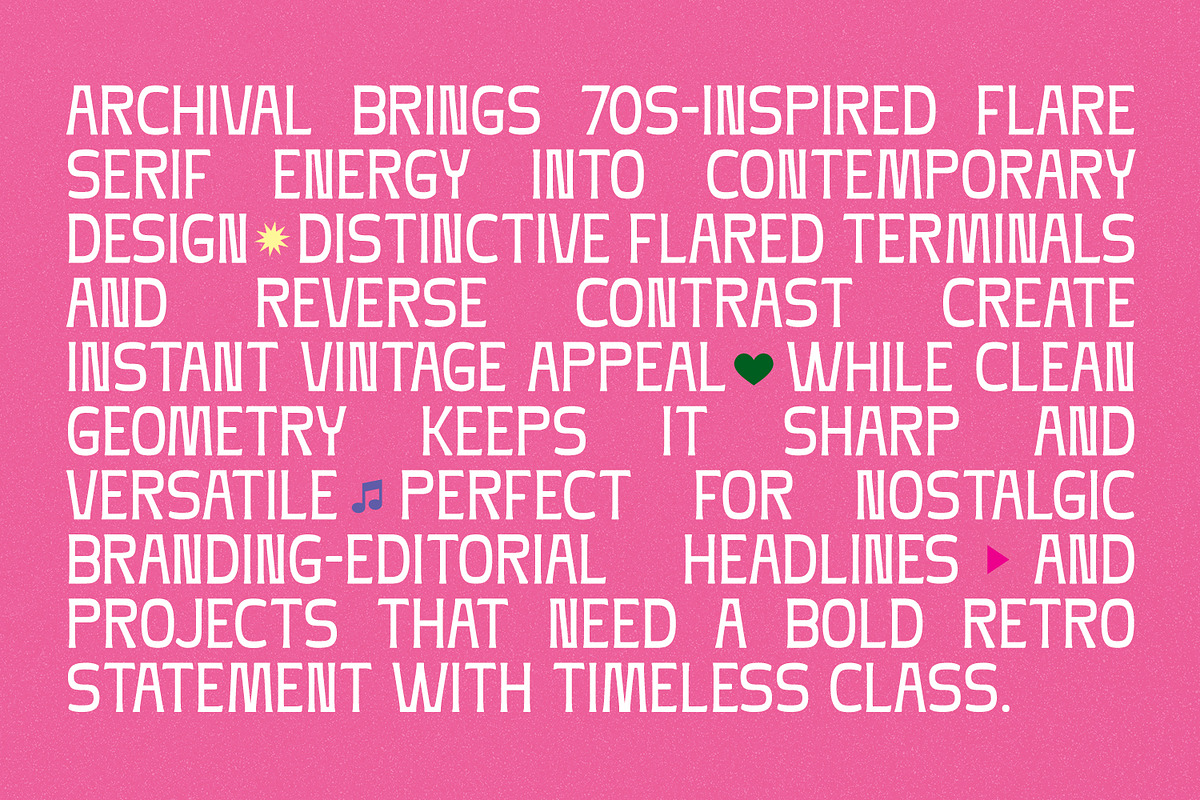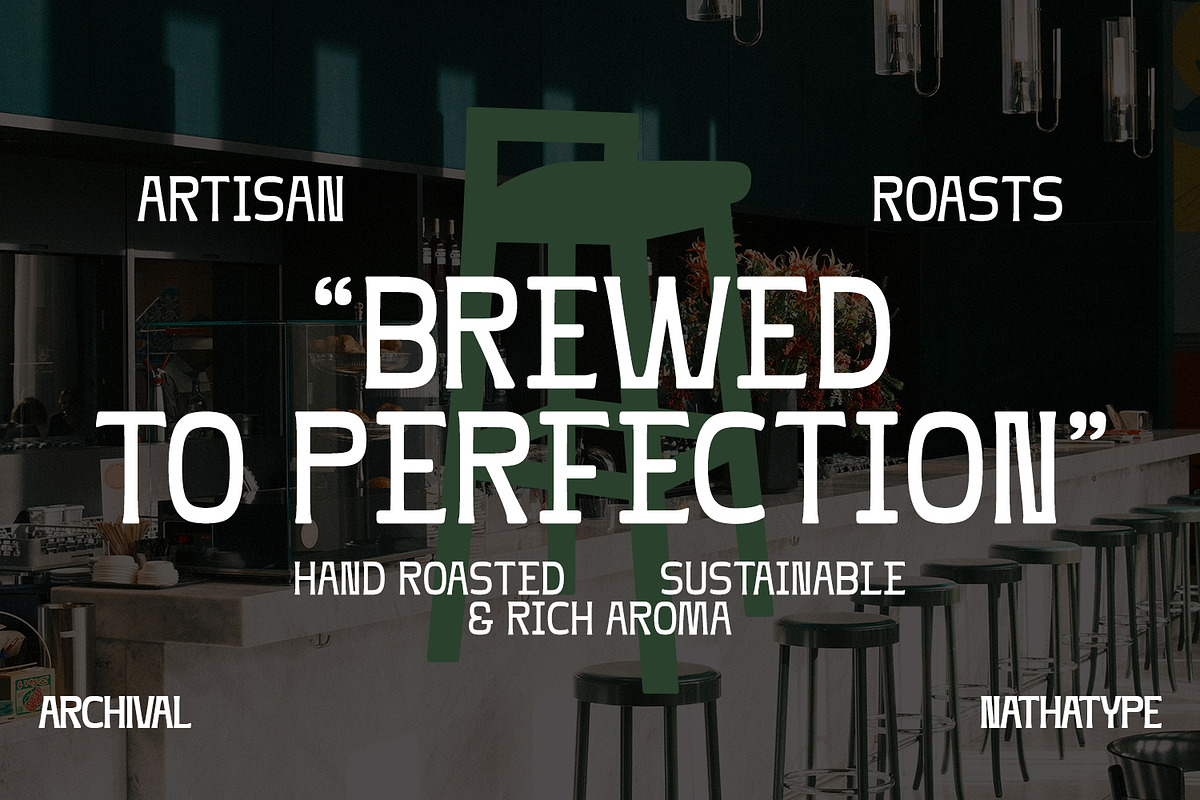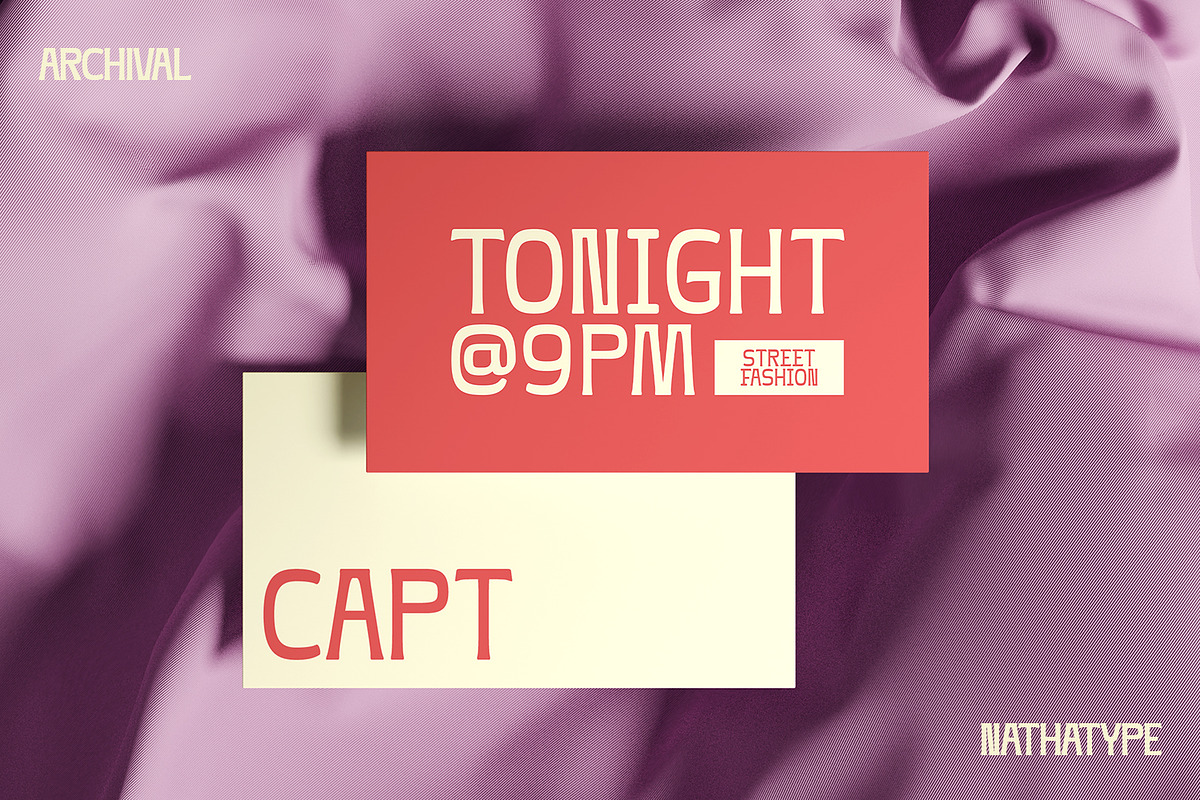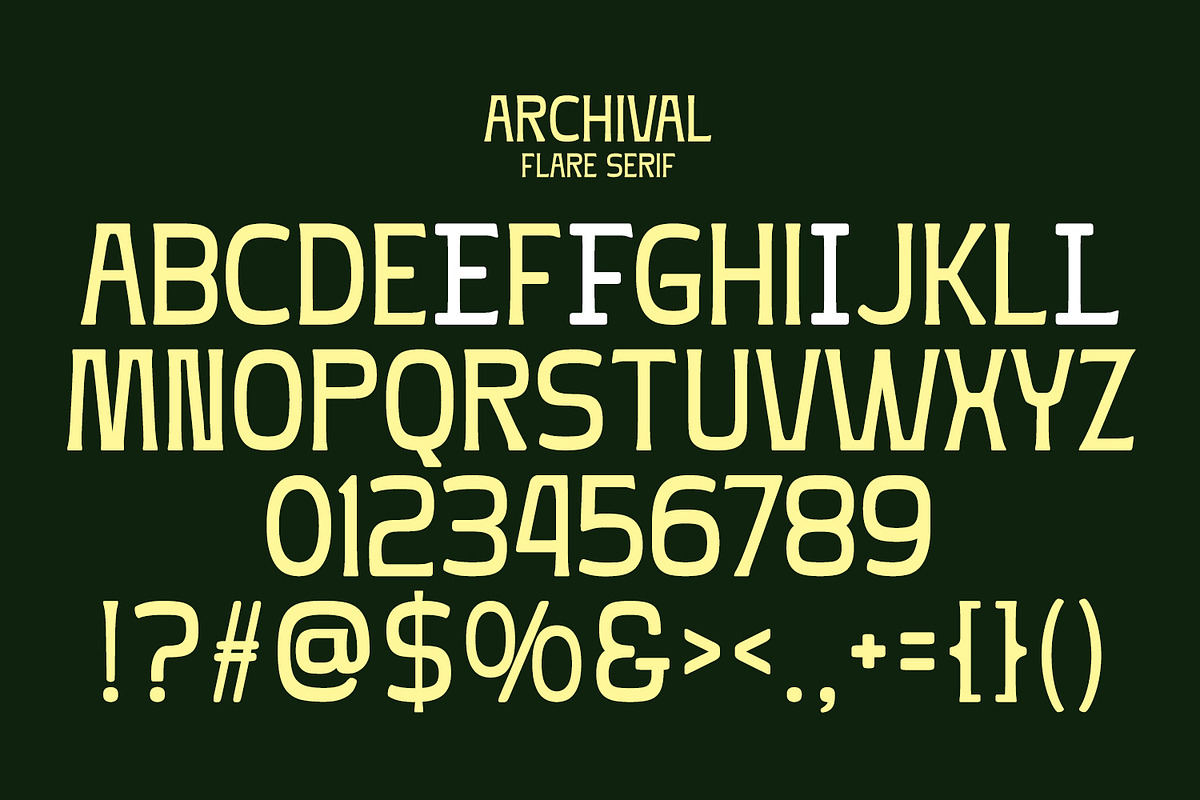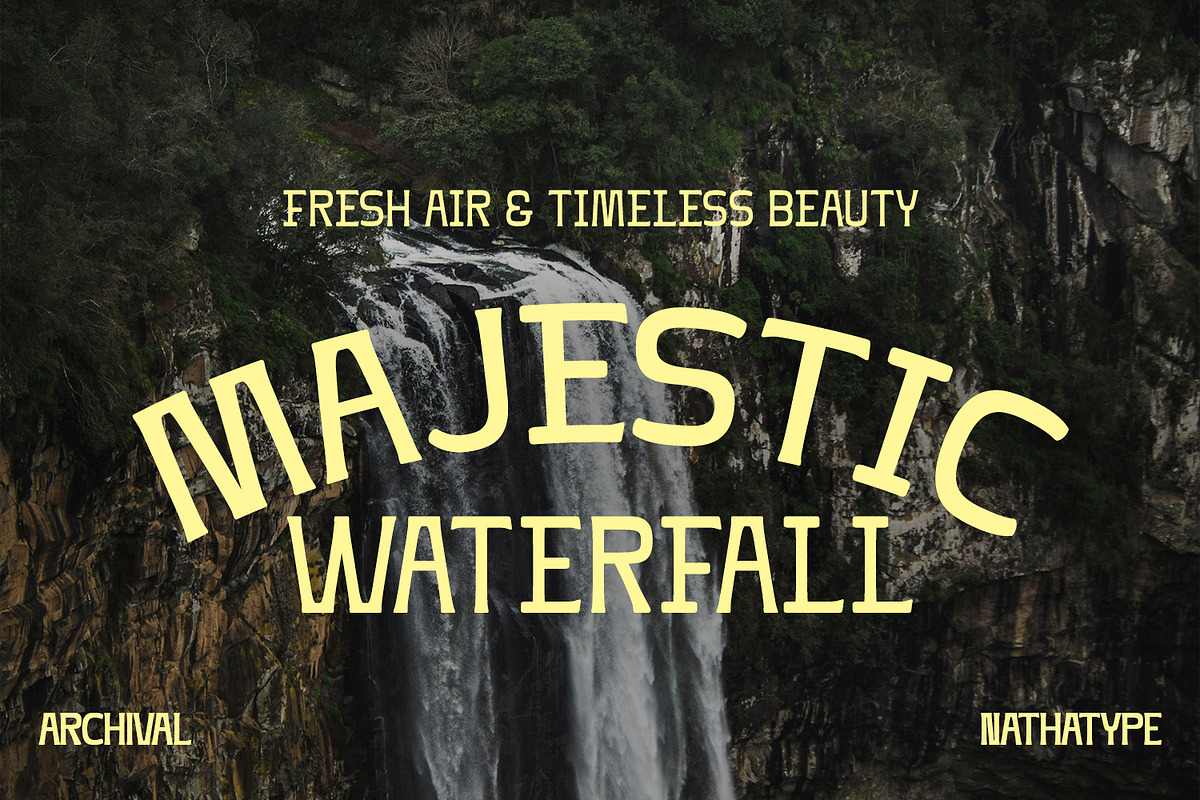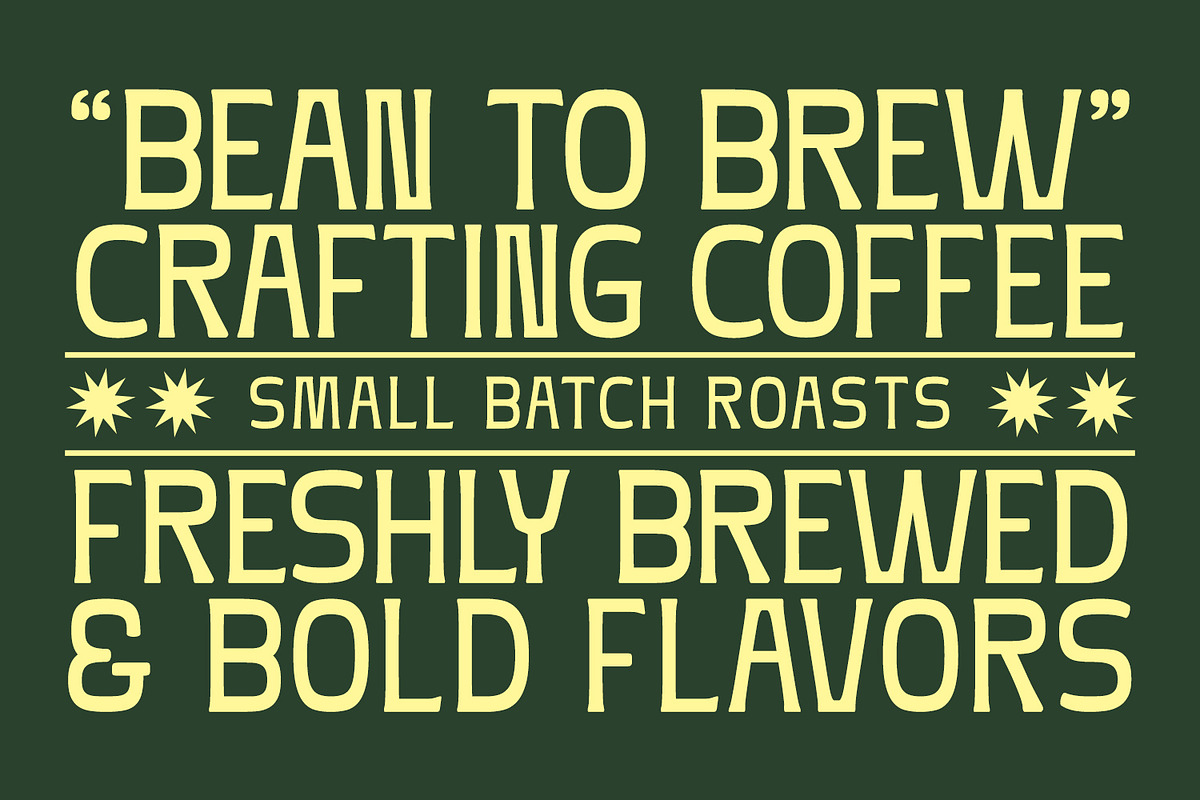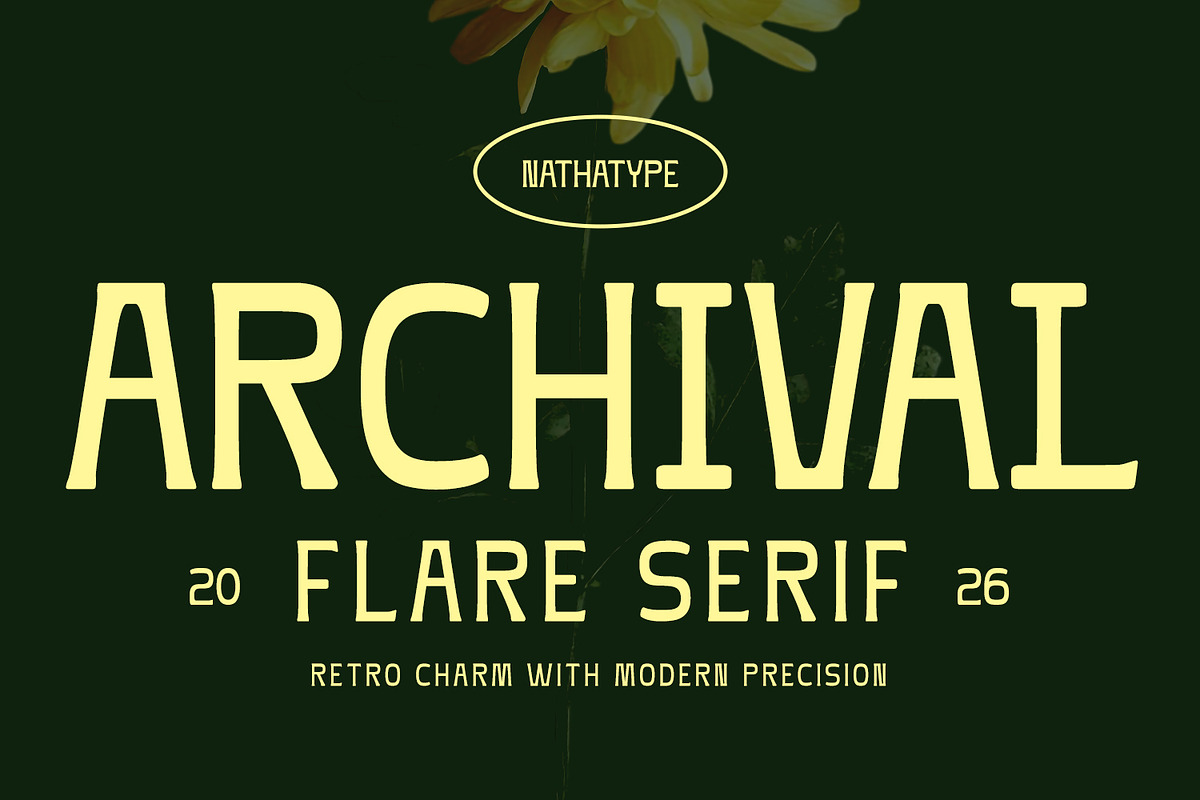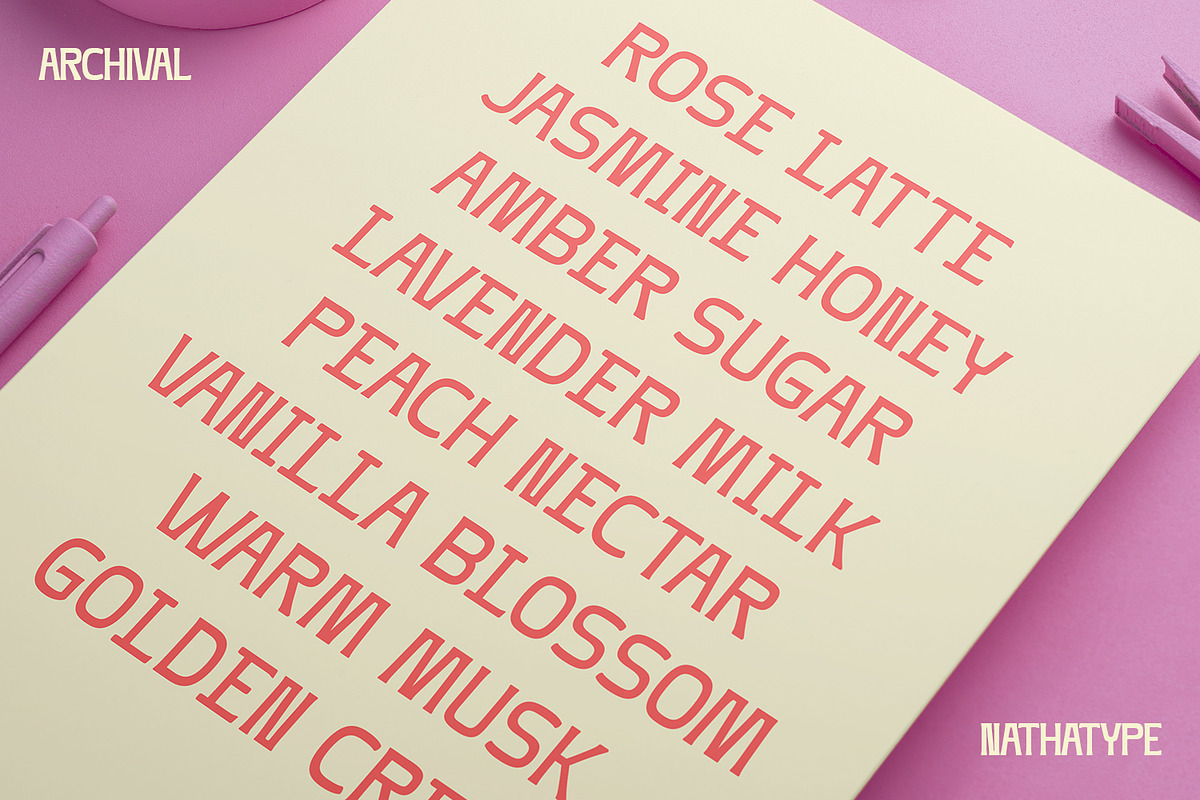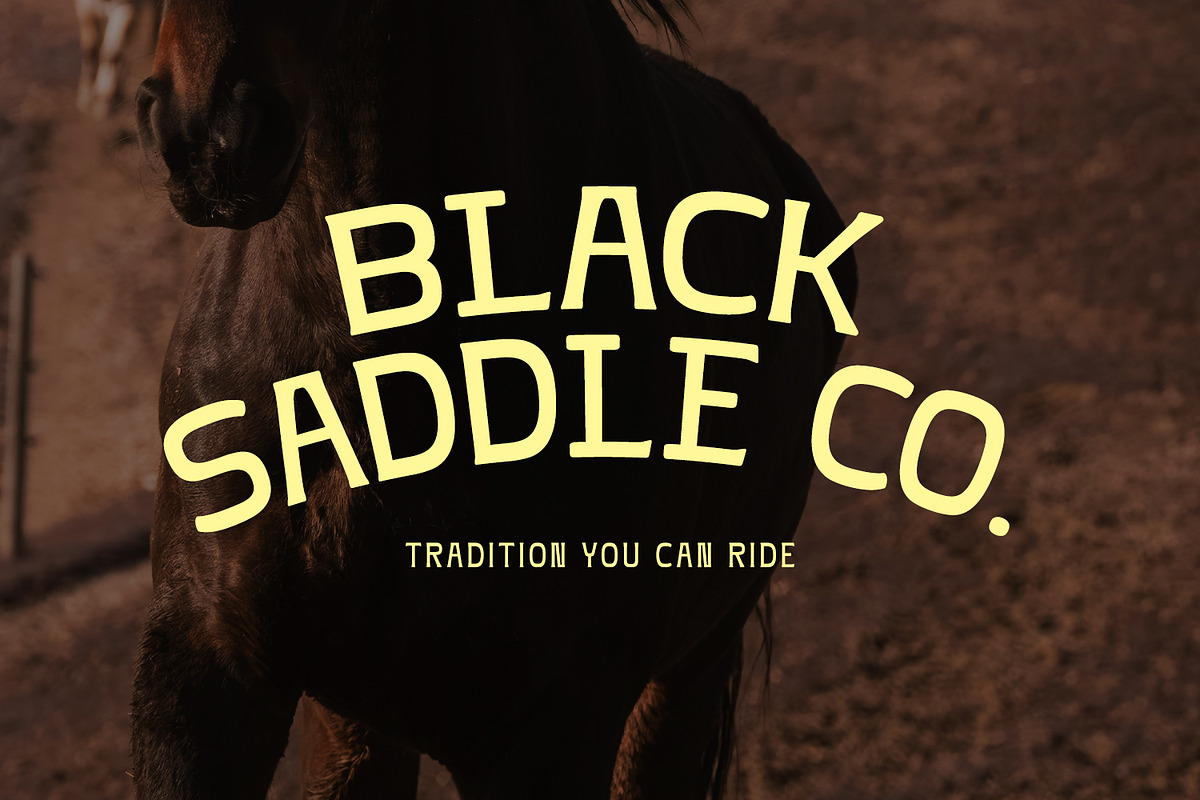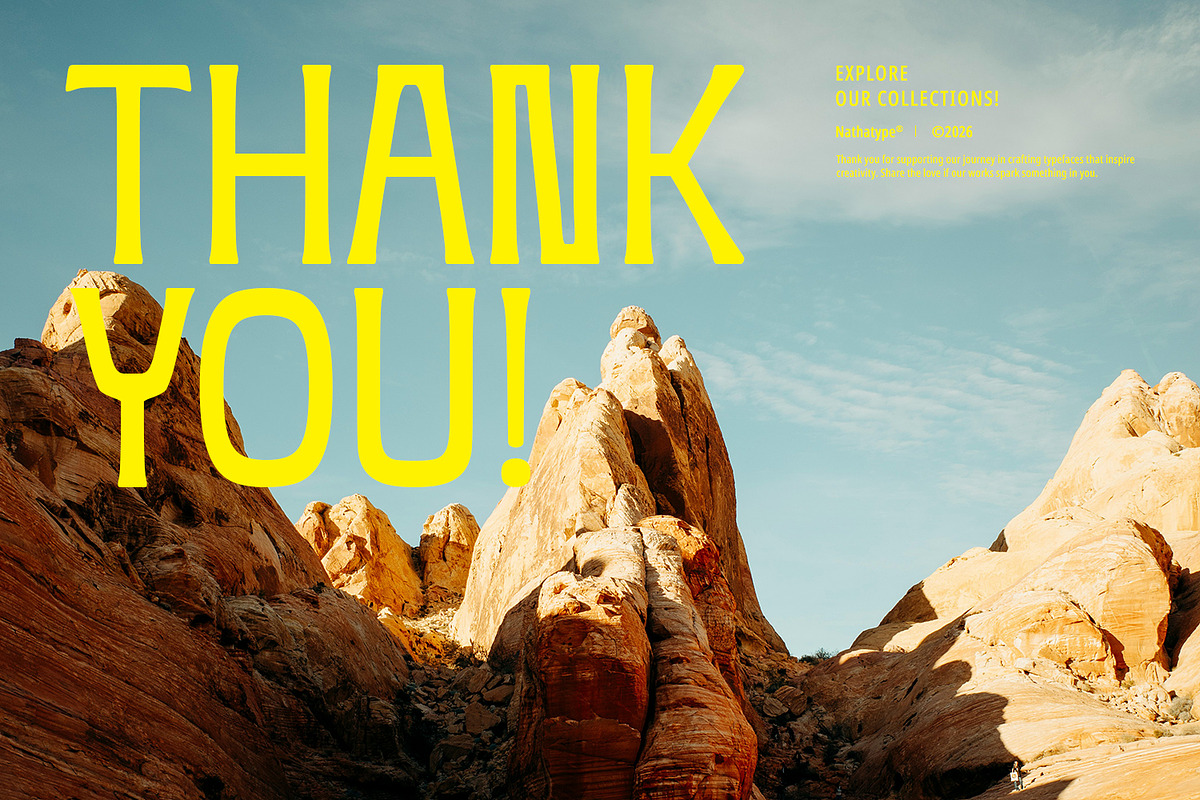
Archival
Archival is a refined serif font that channels the elegance of retro typography through a modern, minimalist lens. Designed entirely in uppercase with a thin weight, this typeface captures the essence of vintage print culture while maintaining a clean and contemporary appeal. Its delicate strokes, classic serif details, and structured letterforms make Archival a perfect choice for designers seeking a retro serif font with a sophisticated and timeless character. In addition, enjoy the features here.
Stylistic Set
Multilingual Supports
Numerals and Punctuations
Archival fits in logos, quotes, name cards, branding, posters, and many more designs. Find out more ways to use this font by taking a look at the font preview.